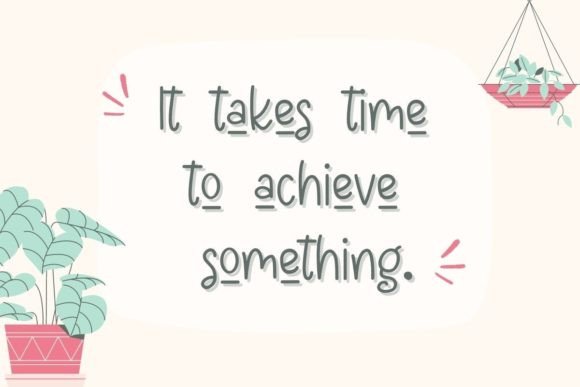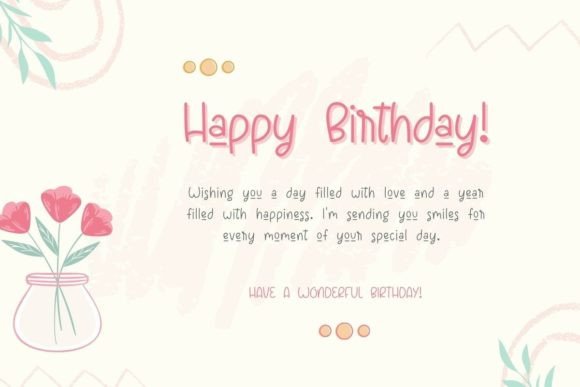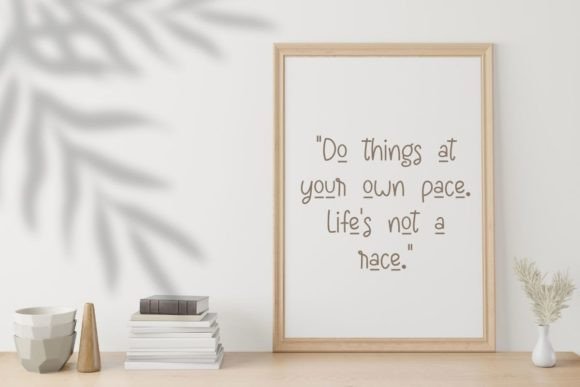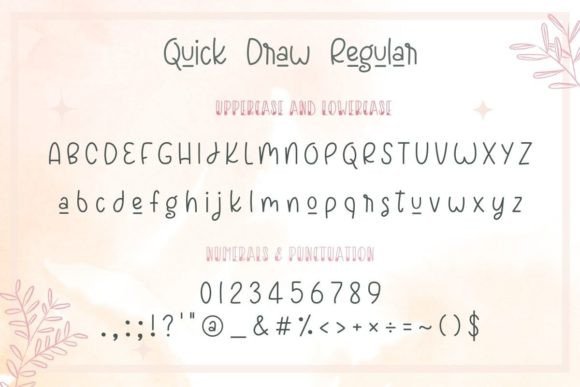
Introduction to Quick Draw Font
Have you ever found yourself scribbling down ideas in the middle of a creative project, only to wish you had a more elegant way to capture your thoughts? As designers, we’ve all been there – frantically searching for the perfect font to match our vision. This is where the Quick Draw Font comes in – a beautifully crafted, handwritten font that’s perfect for taking notes, writing a diary, or even creating greeting cards.
With its high-quality design and transparent background, the Quick Draw Font is an excellent addition to any designer’s toolkit. Not only is it a valuable resource for those looking to add a personal touch to their work, but it’s also free to download, making it an accessible design resource for creatives of all levels.
Key Features of Quick Draw Font
- High-quality font designed for creative projects, perfect for adding a unique touch to your designs.
- Transparent background, allowing for seamless integration with your design elements.
- Includes 5 unique font styles, each with its own distinctive character.
Honest Review: Quick Draw Font
I recently had the chance to work with the Quick Draw Font in a creative project, and I must say I was quite impressed. As a designer, I always look for high-quality fonts that can elevate my designs and make them stand out. The Quick Draw Font did just that.
Here are some things that worked well: ✨
- High-quality design: The font is well-designed and has a unique, hand-drawn feel to it.
- Transparent background: This makes it easy to use the font in a variety of design contexts.
However, I did encounter some limitations: ⚠️
- Limited character set: The font doesn’t have a comprehensive character set, which can be a problem for certain types of projects.
- No bold or italic styles: This can make it difficult to create emphasis in certain designs.
Overall, I’m impressed with the Quick Draw Font. While it may have some limitations, it’s a high-quality design resource that’s definitely worth checking out. I’d recommend it to anyone looking for a unique, hand-drawn font for their creative project.
Tips for Getting the Most Out of Quick Draw Font
Quick Draw Font is a high-quality design resource that can be used in a variety of creative projects. To get the most out of it, use it in conjunction with a transparent background to create a professional-looking design. You can also experiment with different font sizes and colors to add visual interest to your design.
Quick Draw Font is a versatile design resource that can be used in a variety of creative projects, including logos, business cards, and social media graphics. It’s also a great resource for designers who need a high-quality font with a transparent background.